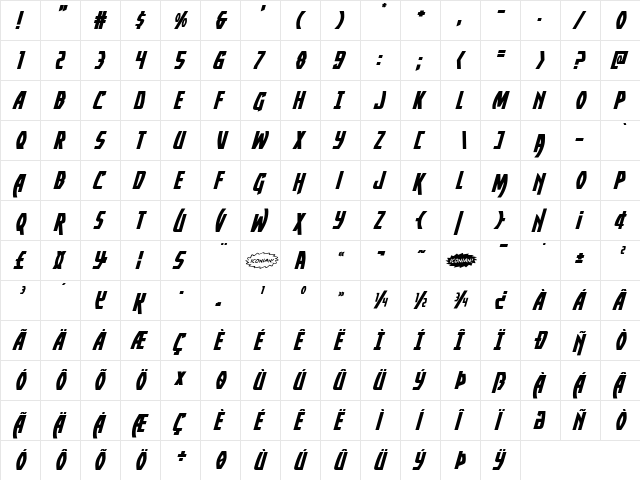
Yankee Clipper Expanded Italic Expanded Italic
Design Context for Yankee Clipper Expanded Italic Typeface
Yankee Clipper Expanded Italic offers clean, dependable letterforms without strong stylistic allegiance, making it a practical choice for designers who need flexibility. The dynamic lean of this cut emphasises speed and emphasis in any layout.
Pro Tip: Use Yankee Clipper Expanded Italic for emphasis, pull quotes, and subheadings where its slanted energy can add rhythm to the layout.